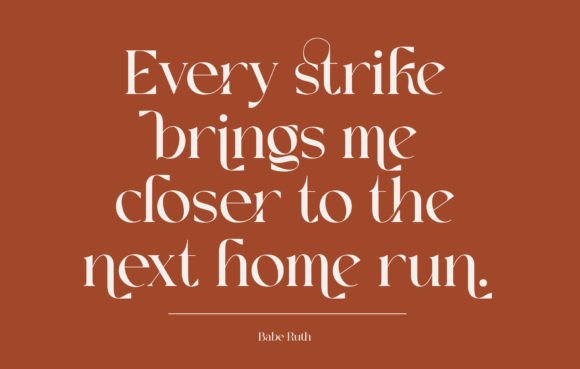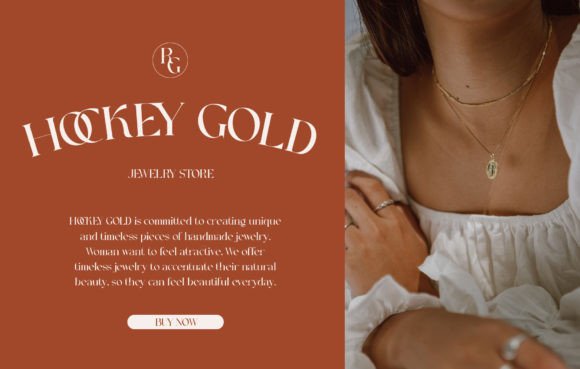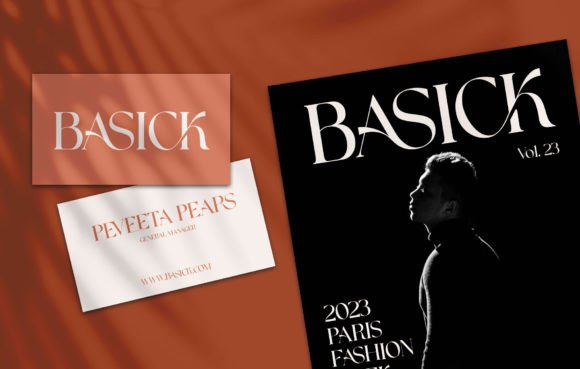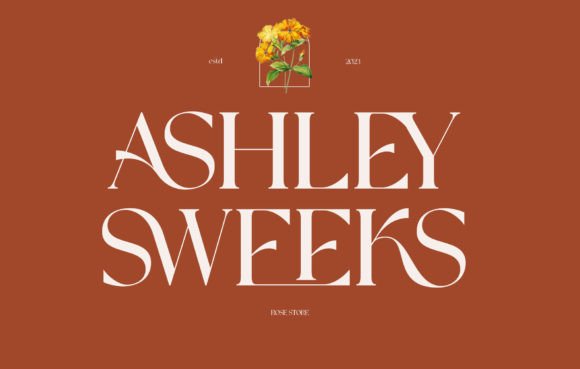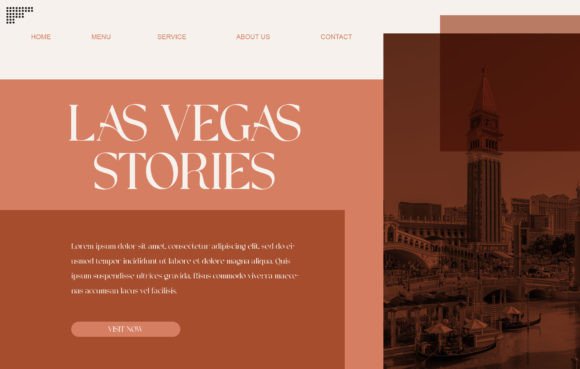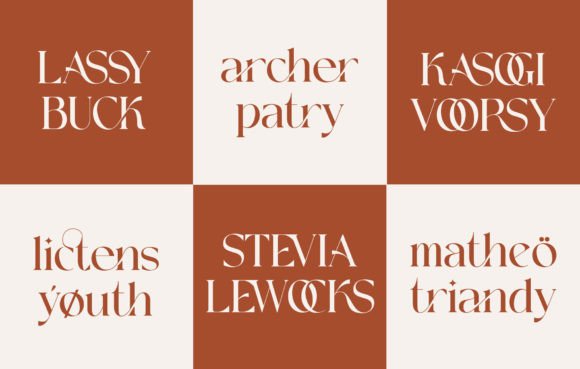
Introduction to Kastil Font
As designers, we’ve all been there – staring at a blank page, waiting for inspiration to strike. It’s the moment when a project is still in its infancy, and the possibilities seem endless. For many of us, this is the moment when the right font can make all the difference. And that’s exactly where Kastil Font comes in – a stylish serif font that’s as elegant as it is versatile.
With its refined serifs and well-proportioned letterforms, Kastil Font is the perfect design resource for any creative project. Whether you’re working on a luxury brand, an editorial piece, or a simple blog post, this font is sure to bring a touch of high quality and sophistication to your work. And the best part? You can download it for free, making it an accessible addition to your design toolkit.
But what really sets Kastil Font apart is its ability to seamlessly integrate with transparent backgrounds, allowing your designs to shine in all their glory. Whether you’re a seasoned designer or just starting out, this font is a valuable addition to your arsenal – and with its free download, you can start experimenting with it today.
Key Features of Kastil Font
- High-quality design resource with a unique, modern aesthetic, perfect for creative projects.
- Features a clean and minimalist design, ideal for logos, branding, and typography-based creative projects.
- Includes multiple font styles, including bold, regular, and italic, to cater to diverse design needs.
Honest Review: Kastil Font
As a designer, I’m always on the lookout for high-quality design resources to elevate my creative projects. Recently, I stumbled upon the Kastil Font, and I’m excited to share my honest review with you.
What works well for me is the font’s versatility. It’s perfect for titles and headings, with a modern and sleek design that catches the eye. The free download option is also a huge plus, making it accessible to designers of all levels.
- ✨ Highly customizable: The font comes in a range of weights and styles, allowing me to tailor it to my specific design needs.
- ✨ Easy to use: The transparent background makes it a breeze to work with, and the font’s clean lines ensure it integrates seamlessly with any design.
However, there are a few limitations I’ve noticed:
- ⚠️ Limited language support: While the font is great for English and some other languages, it may not be suitable for projects that require extensive language support.
Overall, I’m impressed with the Kastil Font. It’s a solid addition to any designer’s toolkit, and I’d definitely recommend it for any creative project that requires a high-quality, modern font.
To get the most out of the Kastil Font, use it in creative projects that require a unique and elegant design. Some common use cases include designing wedding invitations, creating logos, and making presentations for business pitches. Remember to always use the font with a transparent background to maintain its high-quality design.